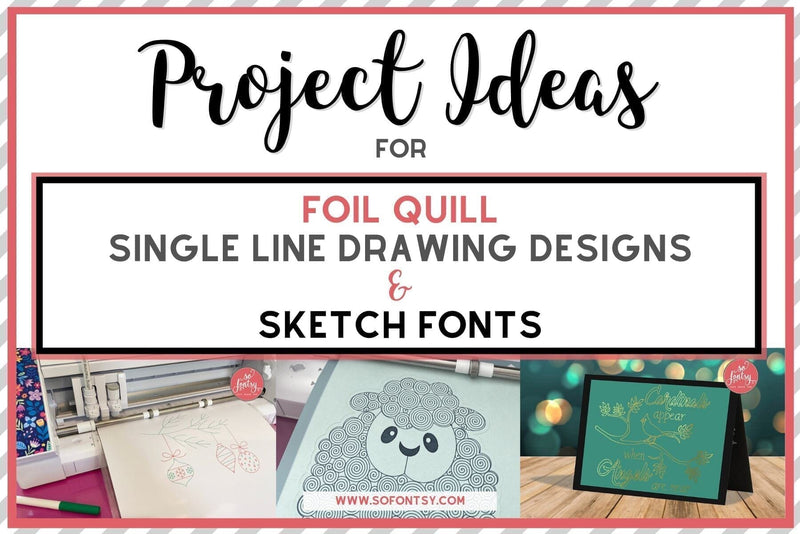
Project Ideas for Foil Quill, Single Line Designs & Sketch Fonts
Project Ideas for Foil Quill, Single Line Designs & Sketch Fonts - Swing Design
Project Ideas for Foil Quill, Single Line Designs & Sketch Fonts
Foil Quill designs (aka single line drawing designs/sketch fonts) are one of the hottest techniques in the crafting world.
We love them because they create even more possibilities for the DIY crafter. Single line drawing designs work by utilizing a die cutting machine to draw, foil quill, etch, emboss, and engrave onto your chosen materials.
Foil Quill, Single Line Drawing Designs & Sketch Fonts are perfect for:
Writing with sketch pens
Using a Foil Quill tool
Engraving (metal, acetate, plexiglass)
Etching glass
Rhinestone lines (for Silhouette machines)
Embossing
Today we are going to look at some of the crafting projects that you can create using foil quill, single line drawing designs & sketch fonts.